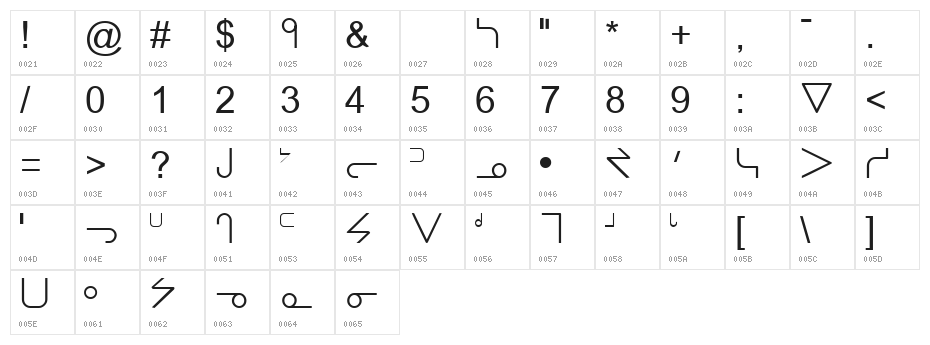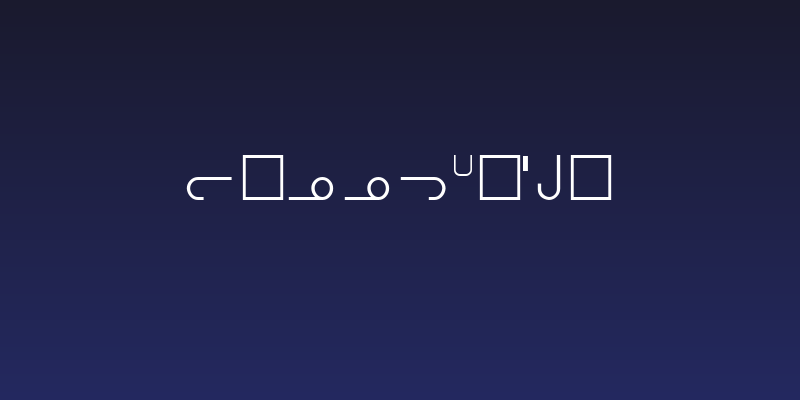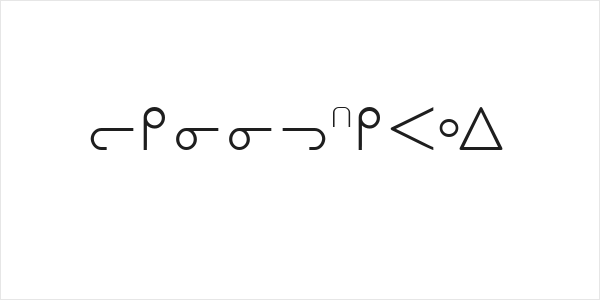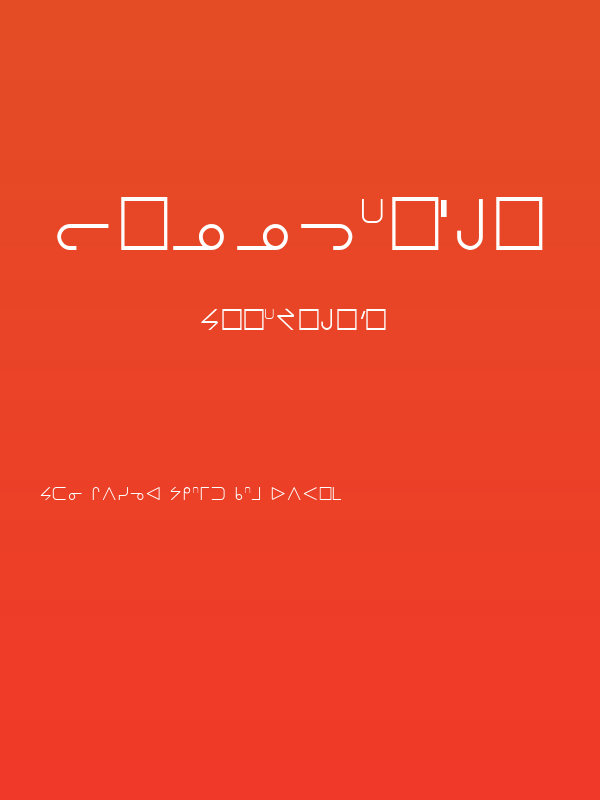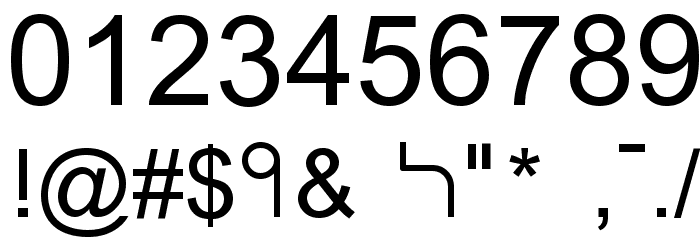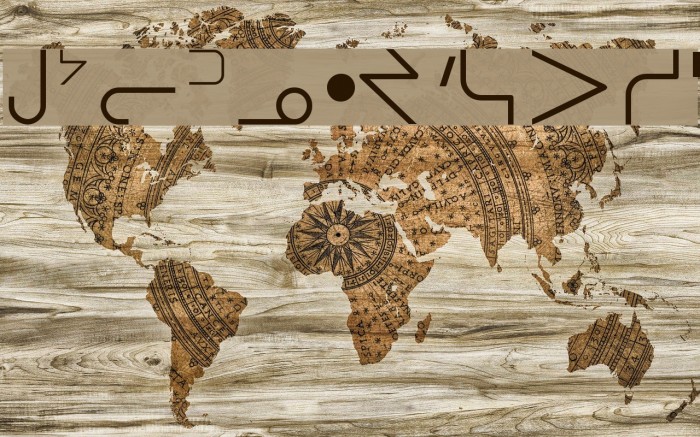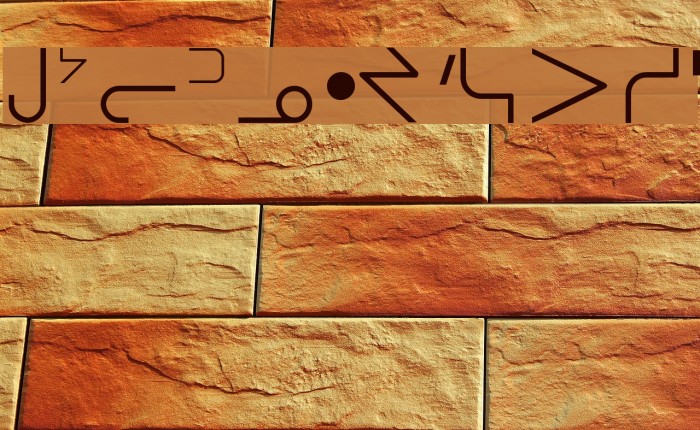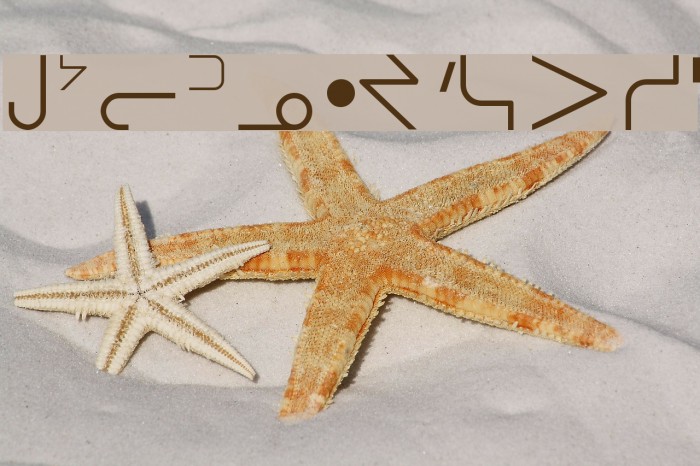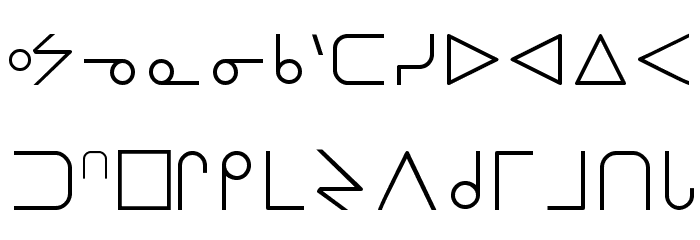
CreeNormal Font
CreeNormal Description
This font features a unique and modern design with a geometric and abstract style. The characters are composed of clean lines and shapes, creating a futuristic and minimalist appearance. The uppercase and lowercase letters are distinct, with a consistent use of curves and angles that give the font a cohesive look. The numerals are bold and clear, ensuring readability. Special characters are included, maintaining the same geometric theme. This font is ideal for projects that require a contemporary and innovative touch.